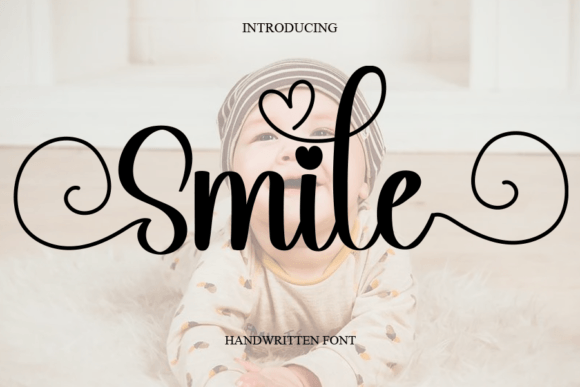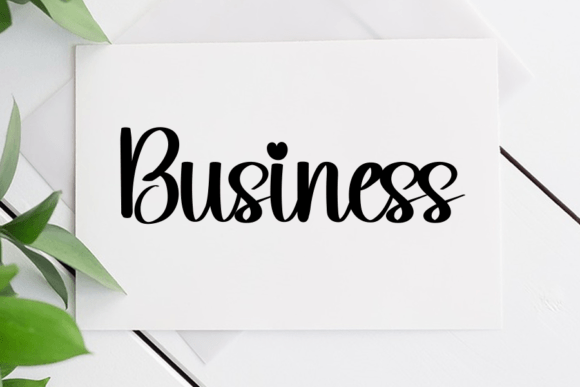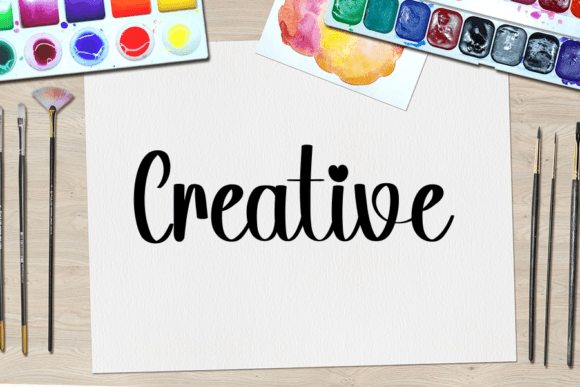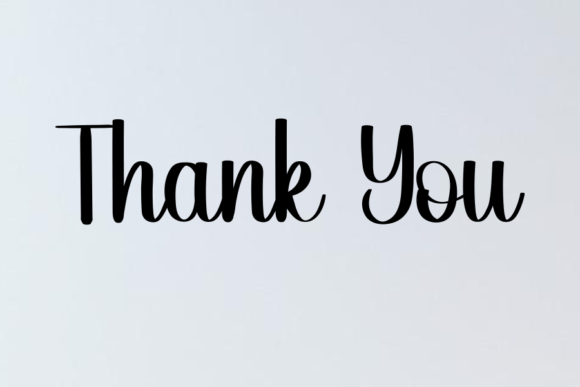
About Smile Font
Smile is a simple handwritten font that brings a natural and uncomplicated feel to your projects. This versatile font is well-suited for a wide spectrum of applications, making it an excellent choice for everything from greeting cards to headlines. With its simplicity and easygoing style, Smile is guaranteed to add a touch of warmth and approachability to your next project.
The simplicity of Smile is one of its standout features, making it a flexible option for a variety of design contexts. Whether you’re working on casual, lighthearted projects or aiming for a more down-to-earth vibe, Smile adapts effortlessly.
The handwritten quality of Smile contributes to its approachable and friendly demeanor. The characters have a natural flow, making the font feel like it was crafted with ease, which translates into a genuine and authentic touch.
The versatility of Smile makes it a reliable choice for a range of design applications. From creating charming greeting cards to capturing attention with headlines, Smile adds a simple and natural aesthetic that resonates well with a broad audience.
In summary, Smile is more than just a font; it’s a design tool that brings simplicity, warmth, and approachability to your projects. Whether you’re working on personal cards or professional headlines, Smile ensures that your text exudes a simple and natural charm, making your designs both inviting and genuine.